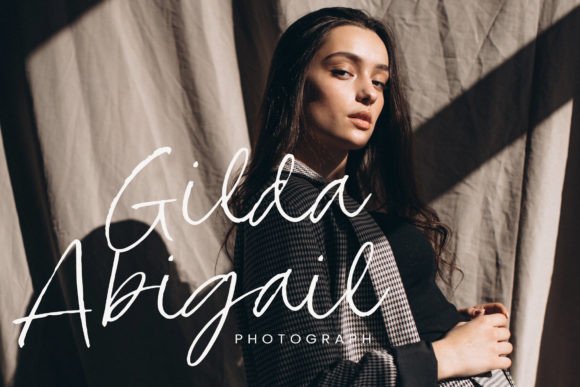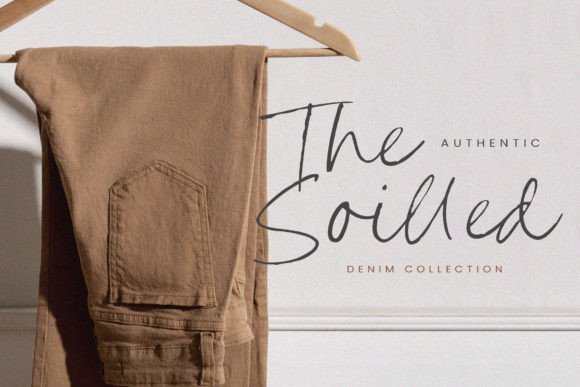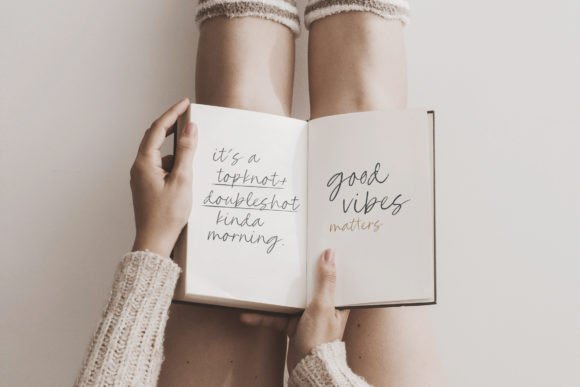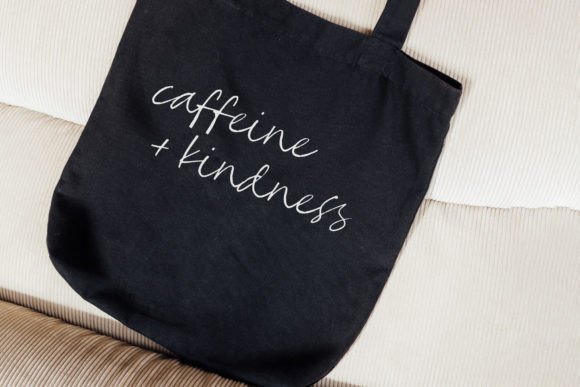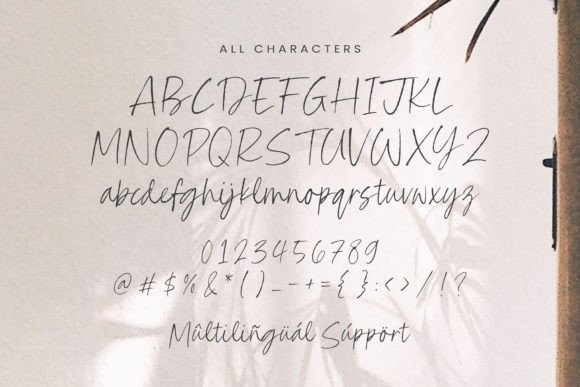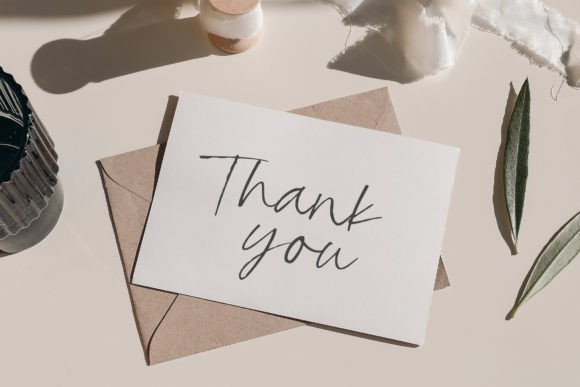
Discover the Delightful World of Charlotte Signature Font
Are you tired of using the same old fonts for your design projects? Look no further than the Charlotte Signature font, a delightful and whimsical choice that adds a touch of quirkiness and creativity to any design. With its unique and playful letterforms, this font is perfect for designers and crafters looking to add a fun and artistic touch to their work.
The Charm of Handcrafted Aesthetic
The Charlotte Signature font boasts an irregular and whimsical stroke style that gives it a charming and handcrafted aesthetic. This font is perfect for adding a personal touch to your designs, whether you’re creating logos, packaging designs, or social media posts. The handcrafted look and feel of the Charlotte Signature font make it ideal for designers who want to add a human touch to their work.
Versatility and Character
One of the best things about the Charlotte Signature font is its versatility. Whether you’re aiming for a vintage-inspired look or a contemporary and artistic vibe, this font offers the perfect blend of character and style. The Charlotte Signature font is suitable for a wide range of design projects, from branding and advertising to packaging and digital media.
Add a Touch of Whimsy to Your Designs
The Charlotte Signature font is all about embracing the quirky and playful side of design. With its unique letterforms and handcrafted aesthetic, this font adds a touch of delightful eccentricity to any design. Whether you’re designing for a client or working on a personal project, the Charlotte Signature font is the perfect choice for designers who want to stand out from the crowd.
The Charlotte Signature font is a must-have for designers and crafters who want to add a touch of personality to their work. Whether you’re creating handmade crafts, jewelry, or other unique items, this font is perfect for adding a personal touch to your designs. The Charlotte Signature font is also ideal for designers who want to create custom branding, logos, and packaging for their clients.
Tips for Using the Charlotte Signature Font
Here are a few tips for using the Charlotte Signature font in your design projects:
- Use the Charlotte Signature font to add a personal touch to your designs, such as in logos, packaging, and social media posts.
- Experiment with different colors and textures to enhance the handcrafted aesthetic of the font.
- Pair the Charlotte Signature font with other fonts to create a unique and visually appealing design.
- Use the Charlotte Signature font to create custom branding and packaging for your clients.
In conclusion, the Charlotte Signature font is a delightful and whimsical choice for designers and crafters looking to add a touch of quirkiness and creativity to their work. With its unique and playful letterforms, handcrafted aesthetic, and versatility, this font is perfect for a wide range of design projects. Whether you’re aiming for a vintage-inspired look or a contemporary and artistic vibe, the Charlotte Signature font is the perfect choice for designers who want to stand out from the crowd.
Get Creative with Charlotte Signature Font